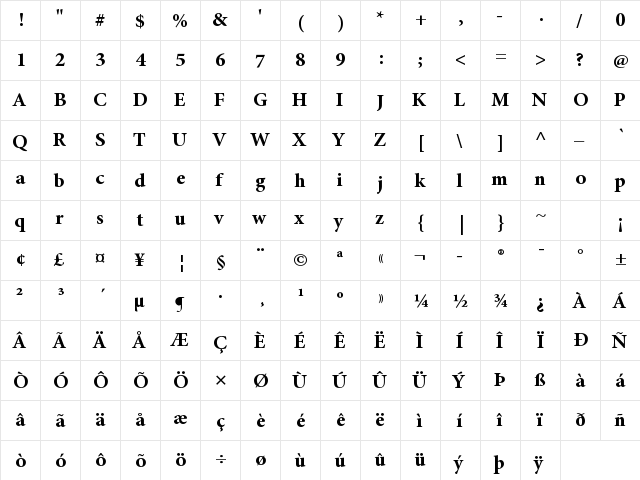
Bahij Lotus Bold
| Foundry | Tiro Typeworks for Adobe Systems Incorporated. |
| Designer | Tim Holloway (Arabic) and Robert Slimbach (Latin) |
Design Context for Bahij Lotus Typeface
Bahij Lotus is a composed and adaptable typeface that performs quietly and consistently across a wide range of design contexts. Its bold stroke weight gives it real presence on the page.